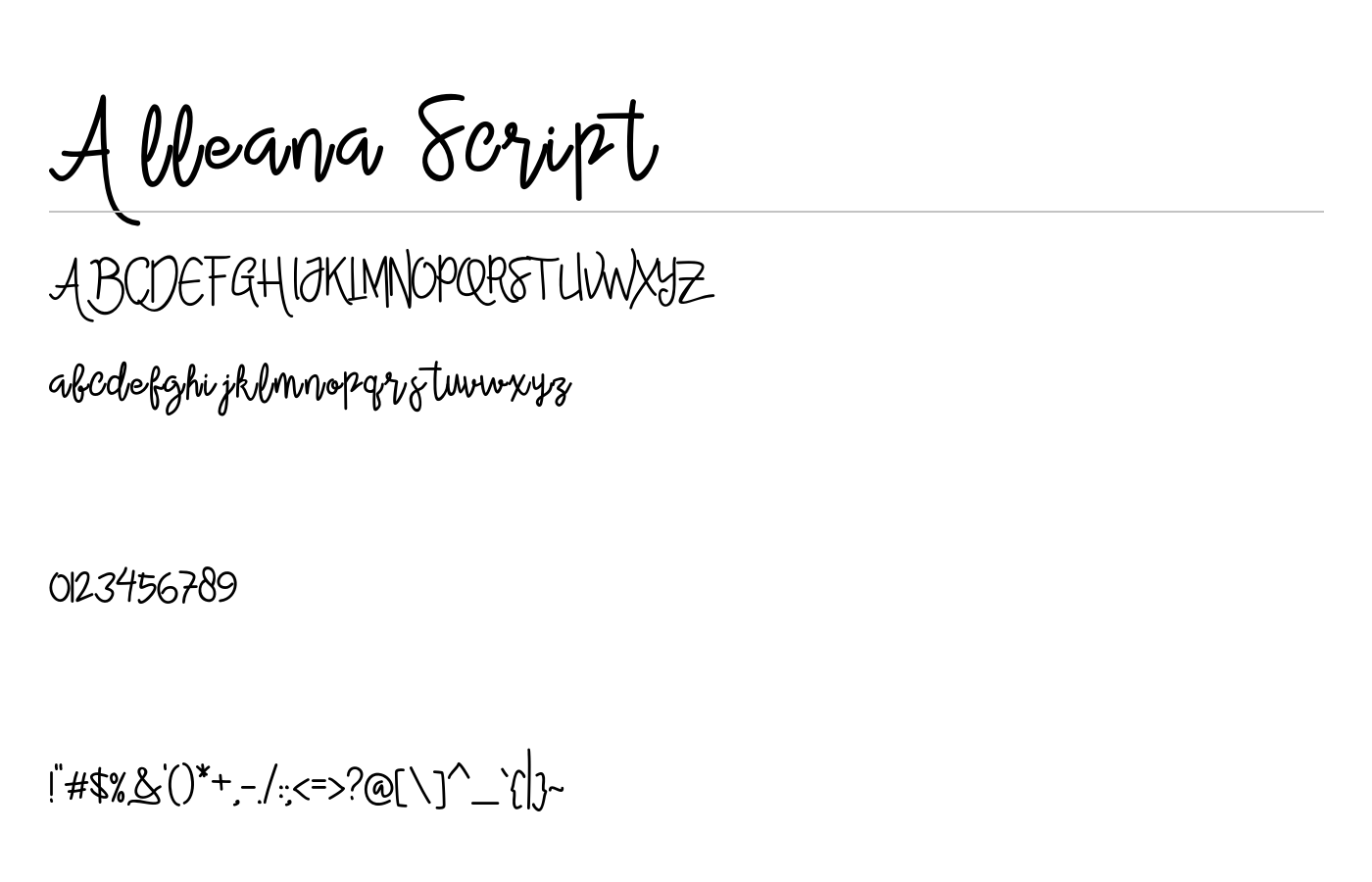
Alleana Script is a light, airy handwritten font with a playful and casual style. Its slender strokes and natural, flowing letterforms create an approachable yet elegant feel, perfect for personal branding, invitations, and creative projects that want a friendly and authentic touch. This font works well for headlines and accents, bringing charm and personality without overwhelming the design.
Alleana Script Font
About Alleana Script Font
| Font family | Alleana Script Font |
| Designer | ijem_RockArt_Ferdiansyah |